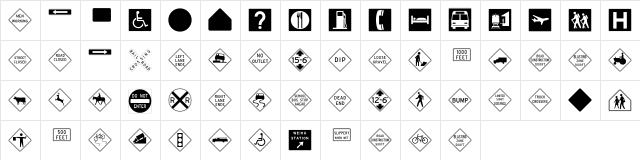
InterstatePi Three
Design Context for InterstatePi Typeface
InterstatePi takes a measured approach to typography — its balanced proportions and neutral character make it a reliable workhorse for both digital and print work.